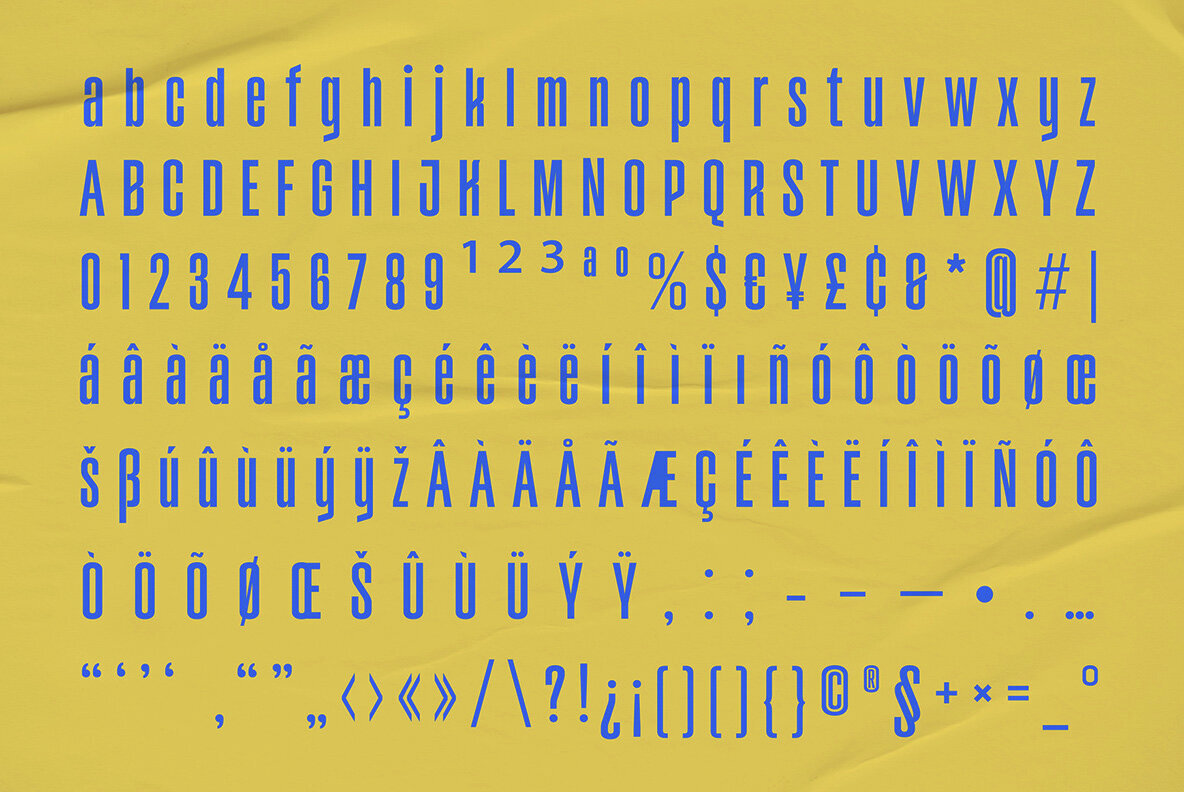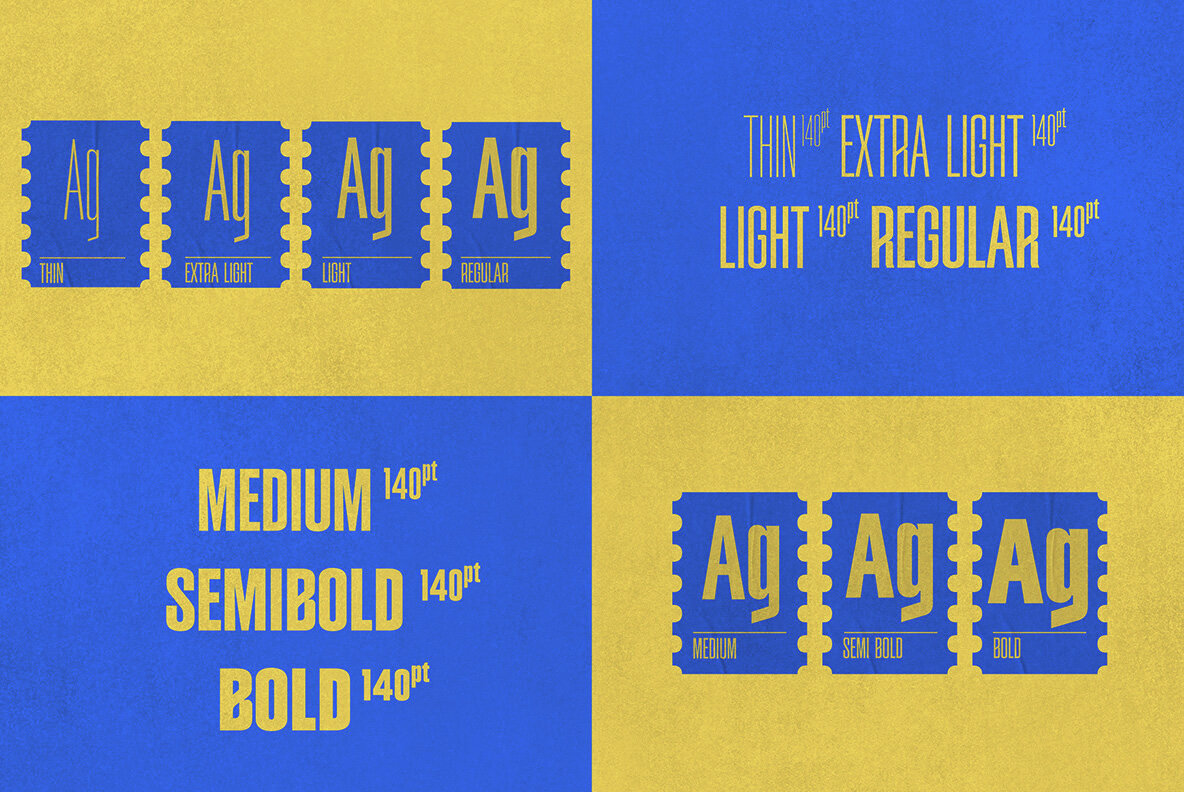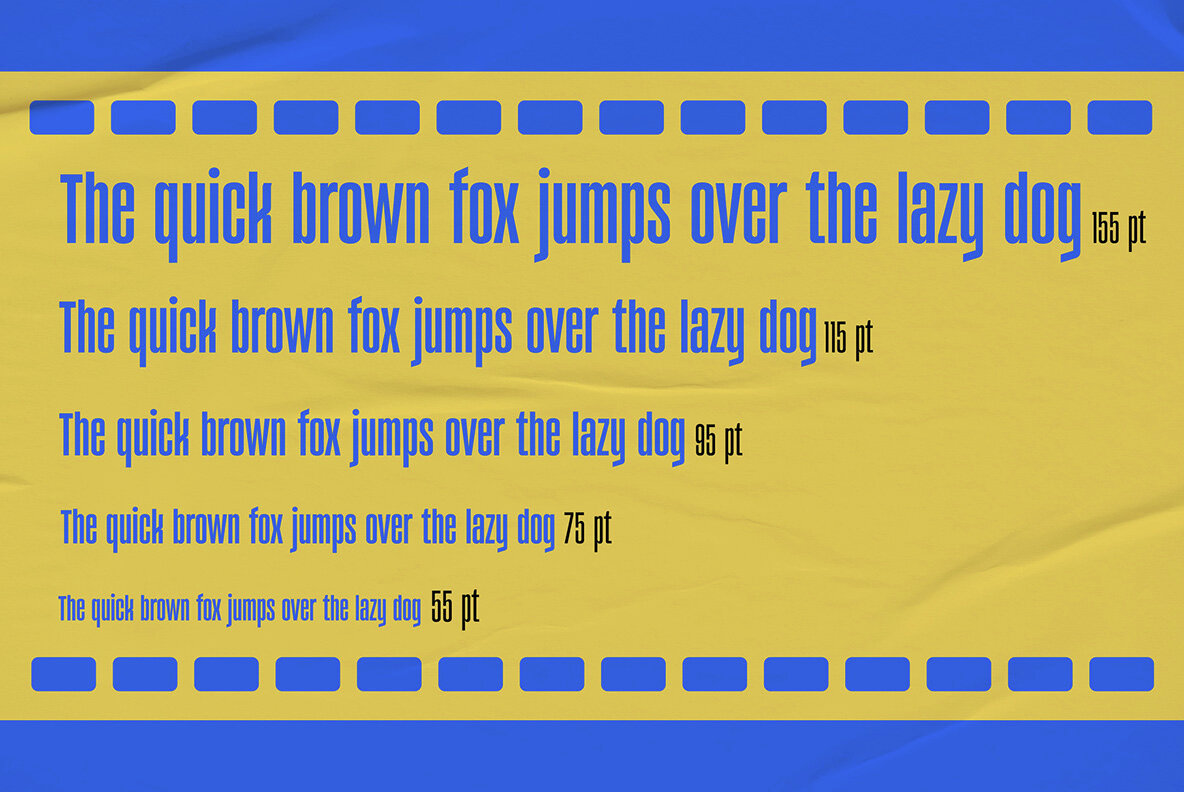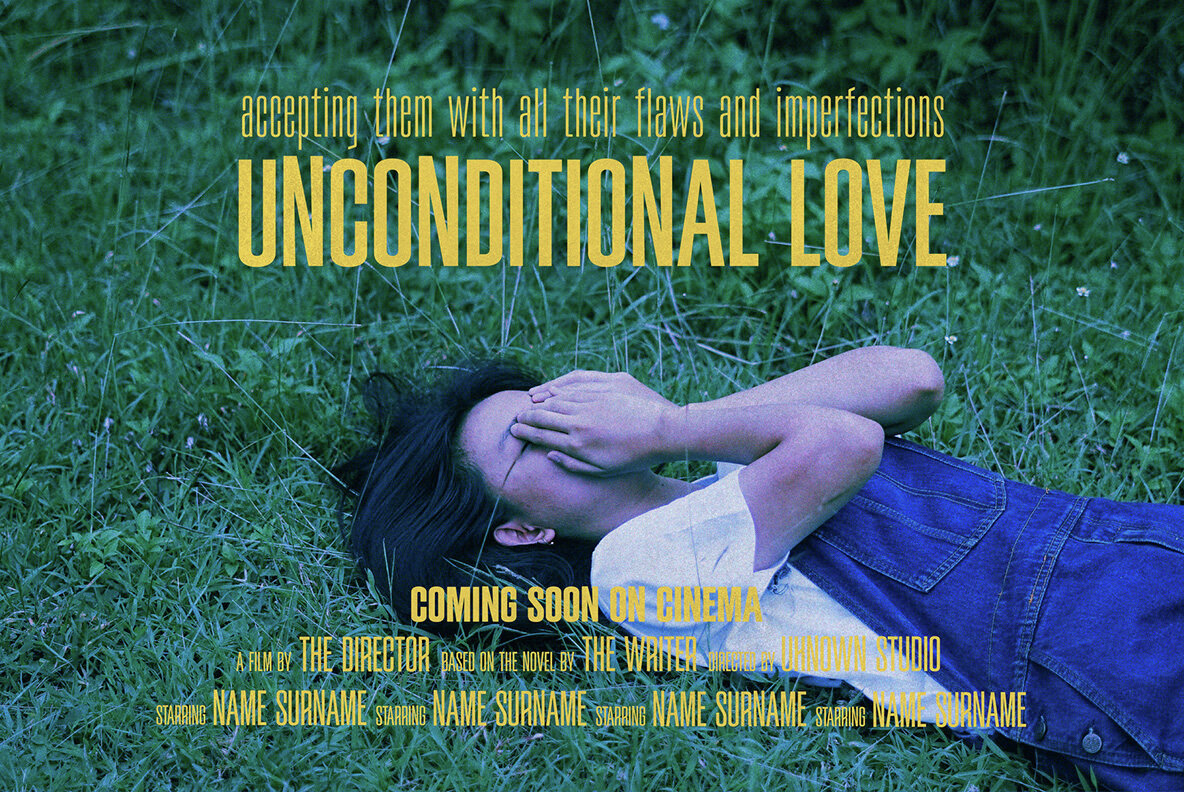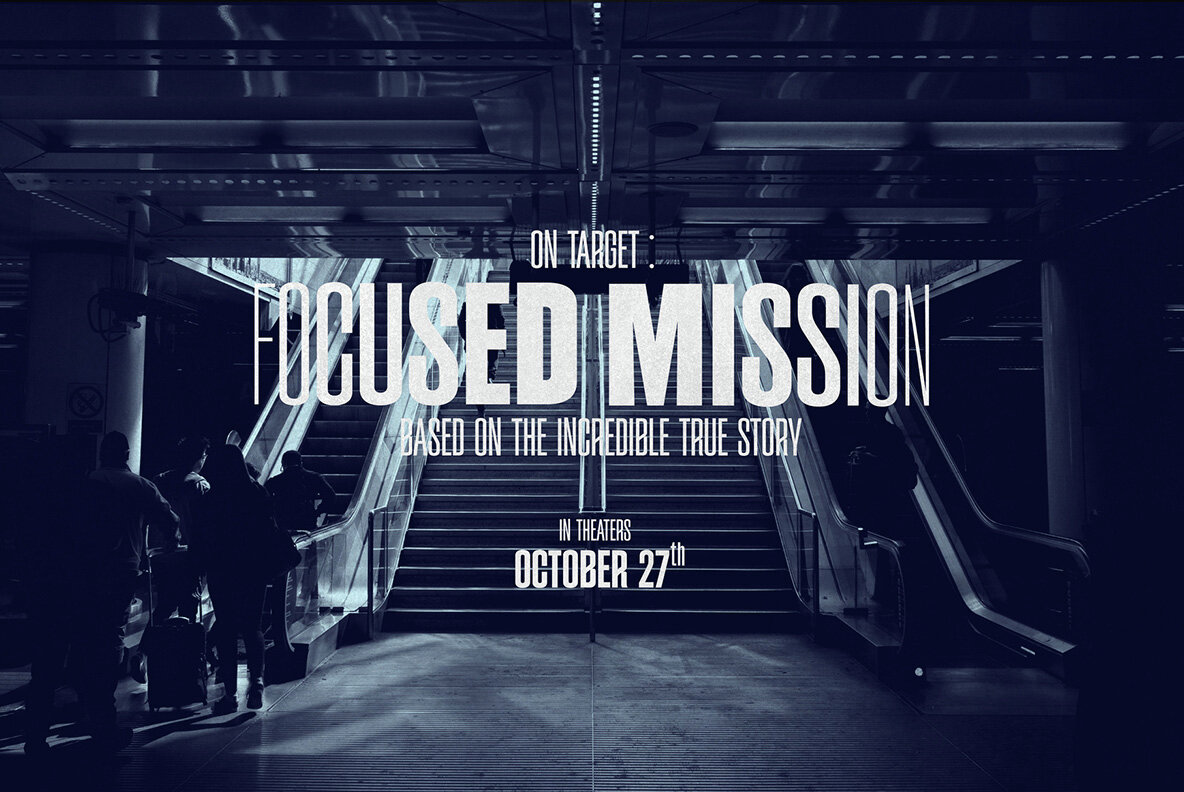
Kanvas Rooper Font
Elevate Your Brand with Kanvas Rooper The Film and Movie Typeface for Professional Excellence Presenting Kanvas Rooper, the Condensed Sans Serif font designed for businesses aiming for excellence. Tailored for impact, this typeface effortlessly captures attention and is perfect for projects demanding a touch of Brave and Bold Shape. Key Features: Brave and Bold Condensed Sans Serif Design: Immerse yourself in the sophistication of Kanvas Rooper's Condensed Sans Serif aesthetic, a favorite among business professionals. Business Versatility: Ideal for a wide array of projects, ensuring your designs make a lasting impression. Immediate Impact: Download now and watch your brand projects soar with this trending typeface. Brand Excellence: Enhance your brand's presence with Kanvas Rooper, strategically designed for a professional touch. Seamless Integration: Compatible with major design software, ensuring a streamlined design process. Inspired by Business Trends: Kanvas Rooper draws inspiration from recent top-sellers, aligning seamlessly with the latest business design preferences.
Why Choose Kanvas Rooper?